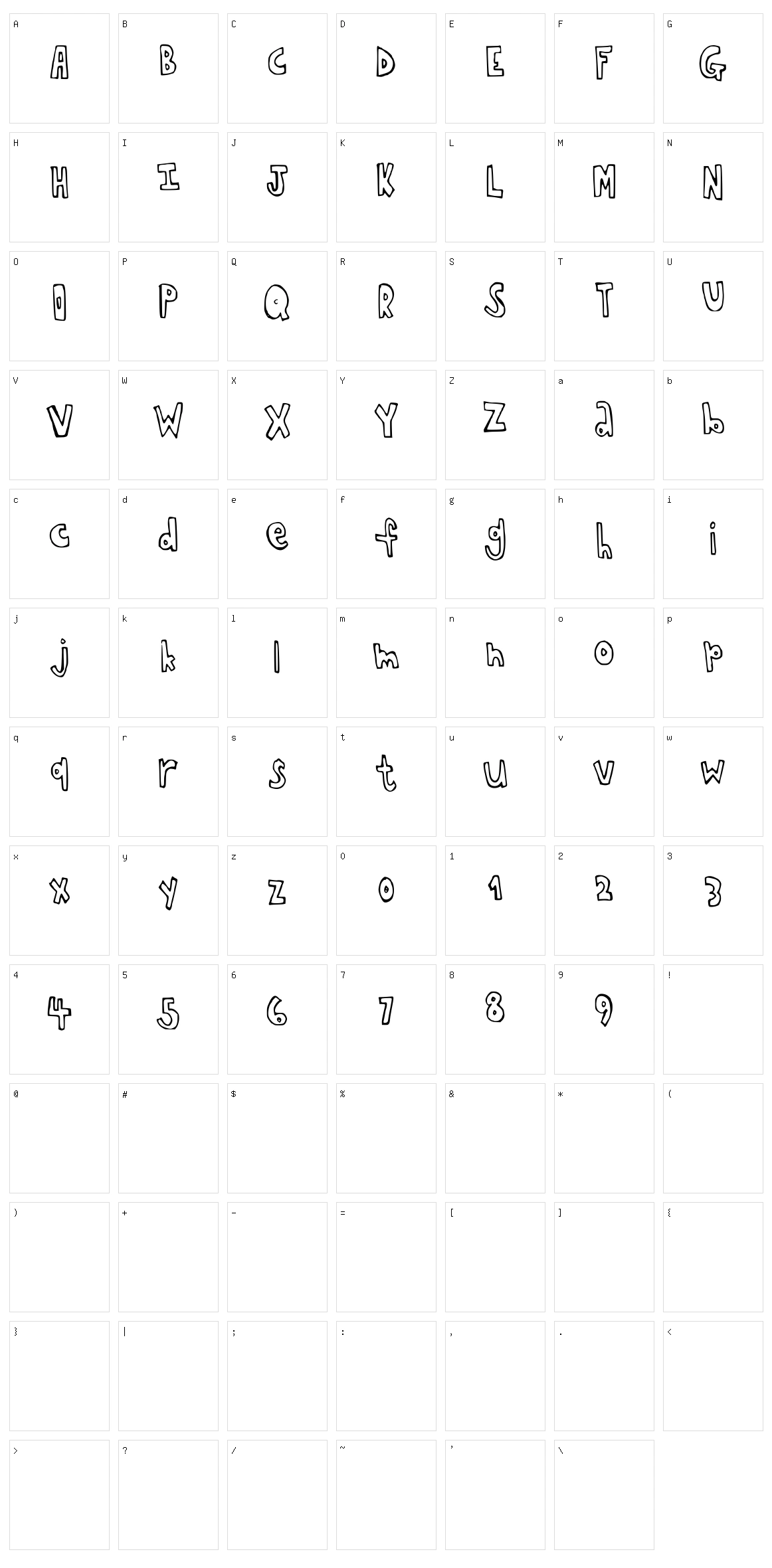
The free font Chopstickfont is carefully designed by Yicong Faith, showcasing a thoughtful balance of creativity and usability and falls under the Cartoon font style. When you download the ZIP file, it contains only 15.31 KB of font files, making it lightweight and quick to download. Please review the license details below to understand permitted usage and distribution rights. If license information is not available, we recommend using this font for personal projects only or contacting the author directly for commercial usage permissions.